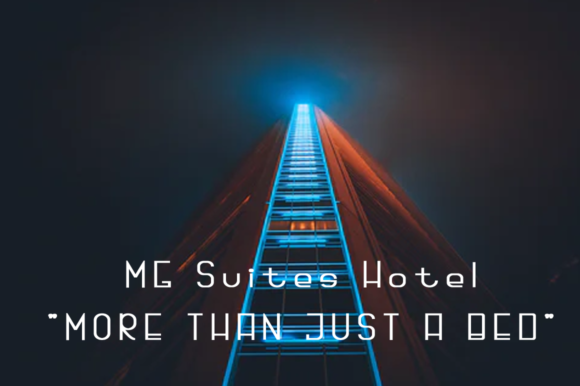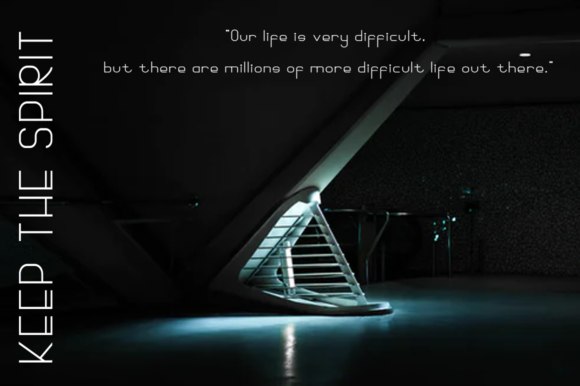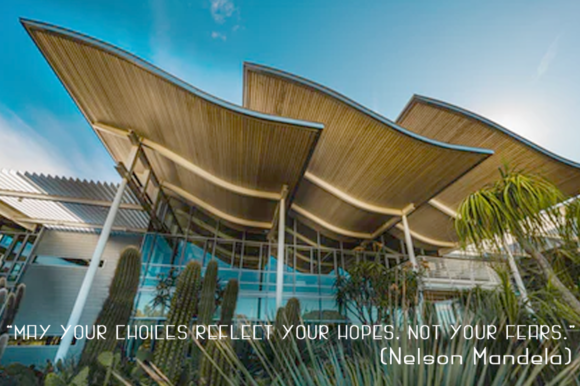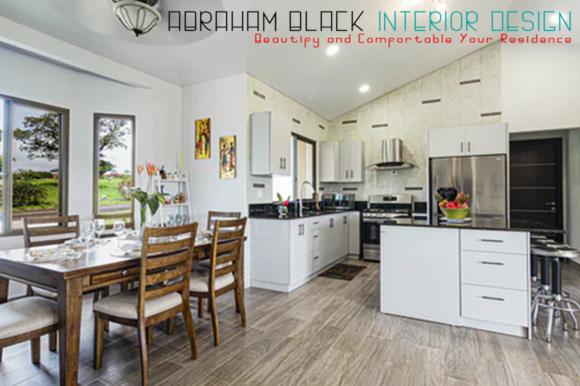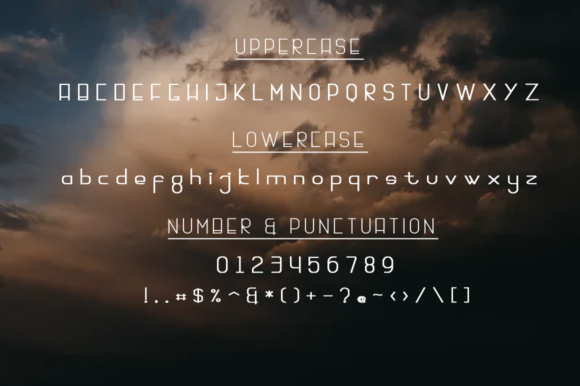
Introducing Fast Font: Elevate Your Designs with Modern Elegance
In the world of design, fonts play a pivotal role in conveying messages, evoking emotions, and creating lasting impressions. For designers and crafters seeking a modern and sophisticated touch, the Fast Font is an exceptional choice. This thin lettered display font is engineered to make your posters, flyers, and prints stand out with its sleek and elegant appearance.
The Essence of Fast Font
Fast Font embodies the essence of modern design. Its thin letters exude a sense of sophistication and elegance, making it perfect for projects that demand a contemporary look. The font’s clean lines and minimalist aesthetic ensure that your designs are not only visually appealing but also effortlessly readable.
One of the key advantages of Fast Font is its versatility. Whether you’re working on a poster, flyer, or any print material, this font seamlessly integrates into your design, enhancing its overall appeal. Its adaptability makes it an excellent choice for various design projects, from branding and advertising to editorial and creative endeavors.
With Fast Font, the design possibilities are endless. You can use it to:
- Create stunning posters that capture attention and convey your message with clarity.
- Design elegant flyers that stand out in a crowded space.
- Elevate your print materials with a modern and sophisticated touch.
- Experiment with different colors, textures, and patterns to create unique and captivating designs.
Why Choose Fast Font?
There are several reasons why Fast Font should be your go-to choice for your design projects:
- Modern Aesthetic: Fast Font boasts a modern and thin lettered design that instantly elevates your projects.
- Readability: Despite its thin lines, the font maintains excellent readability, ensuring your message is conveyed clearly.
- Versatility: Suitable for a wide range of design projects, from posters and flyers to logos and branding.
Tips for Using Fast Font Effectively
To maximize the impact of Fast Font in your designs, consider the following tips:
- Pair with Complementary Fonts: Combine Fast Font with complementary fonts to create visual interest and hierarchy in your designs.
- Experiment with Colors: Play with different colors to find the perfect match that enhances the font’s elegance and your design’s overall appeal.
- Utilize White Space: Leverage white space effectively to make your text stand out and your design breathe.
- Consistency is Key: Maintain consistency in font usage across your project to ensure a cohesive and professional look.
Fast Font is a game-changer for designers and crafters looking to infuse their projects with a modern and elegant touch. Its thin lettered design, versatility, and readability make it an excellent choice for a wide range of design applications. By incorporating Fast Font into your designs and experimenting with its endless possibilities, you’re sure to create visually stunning and impactful projects that leave a lasting impression.